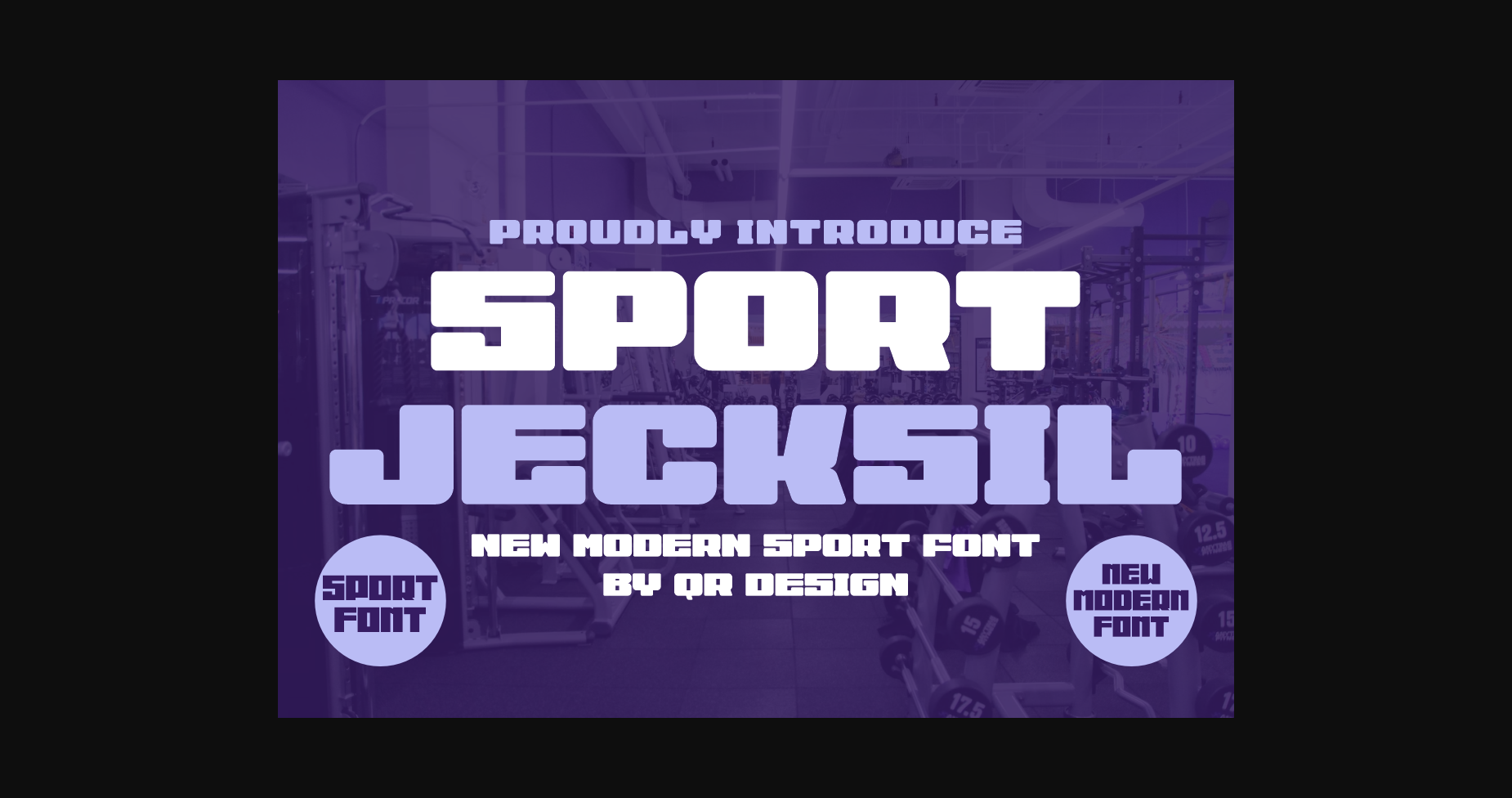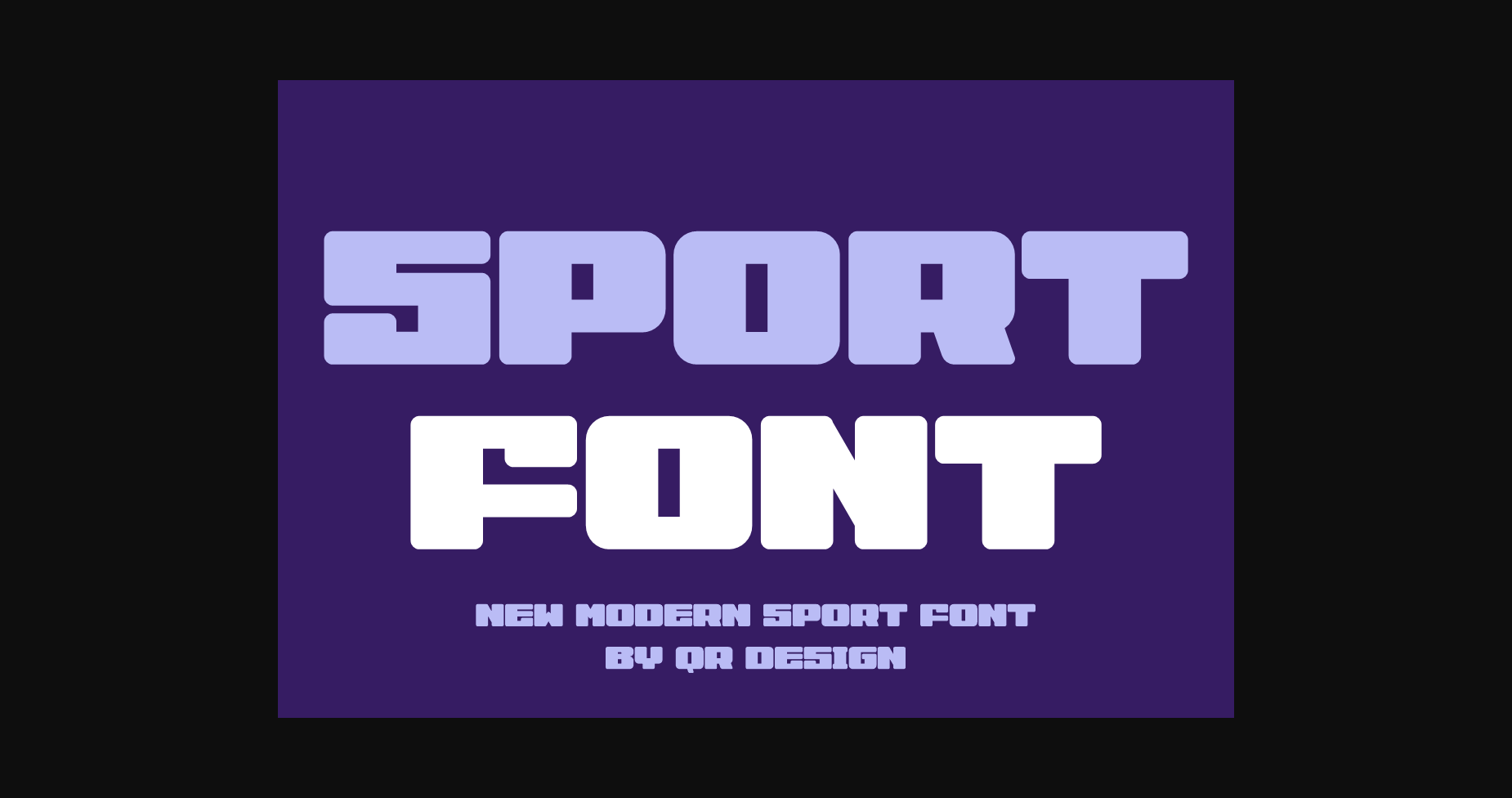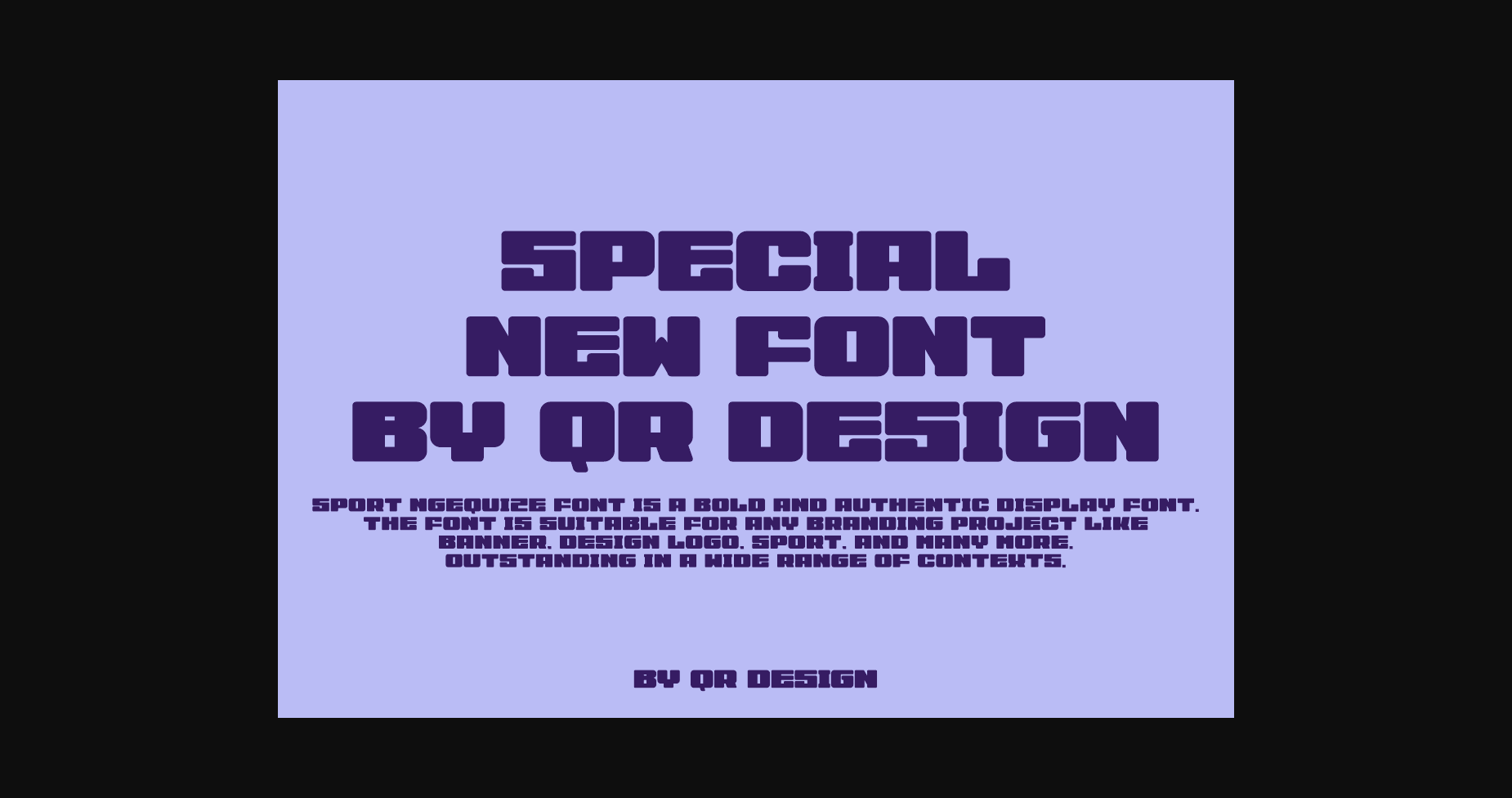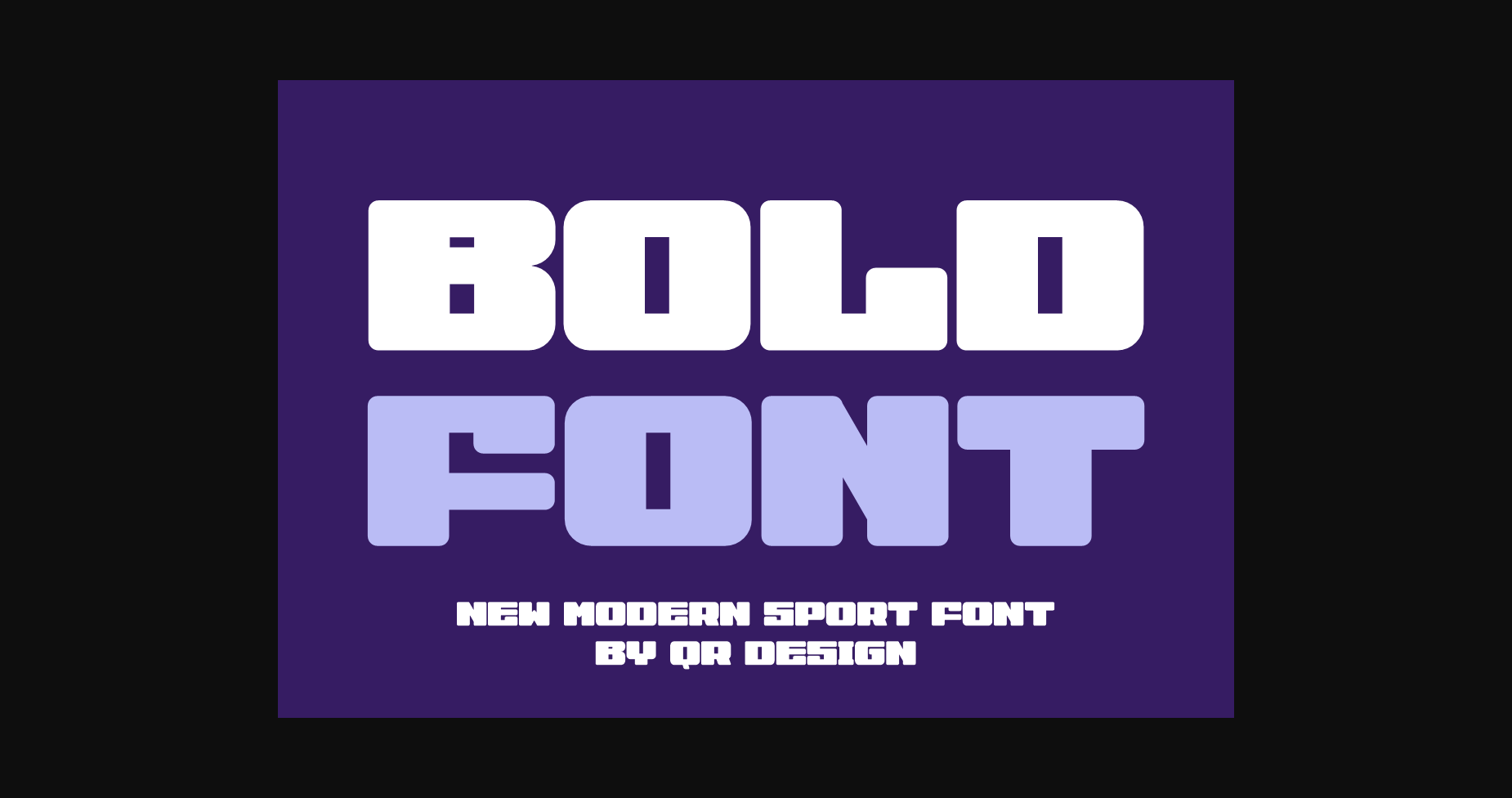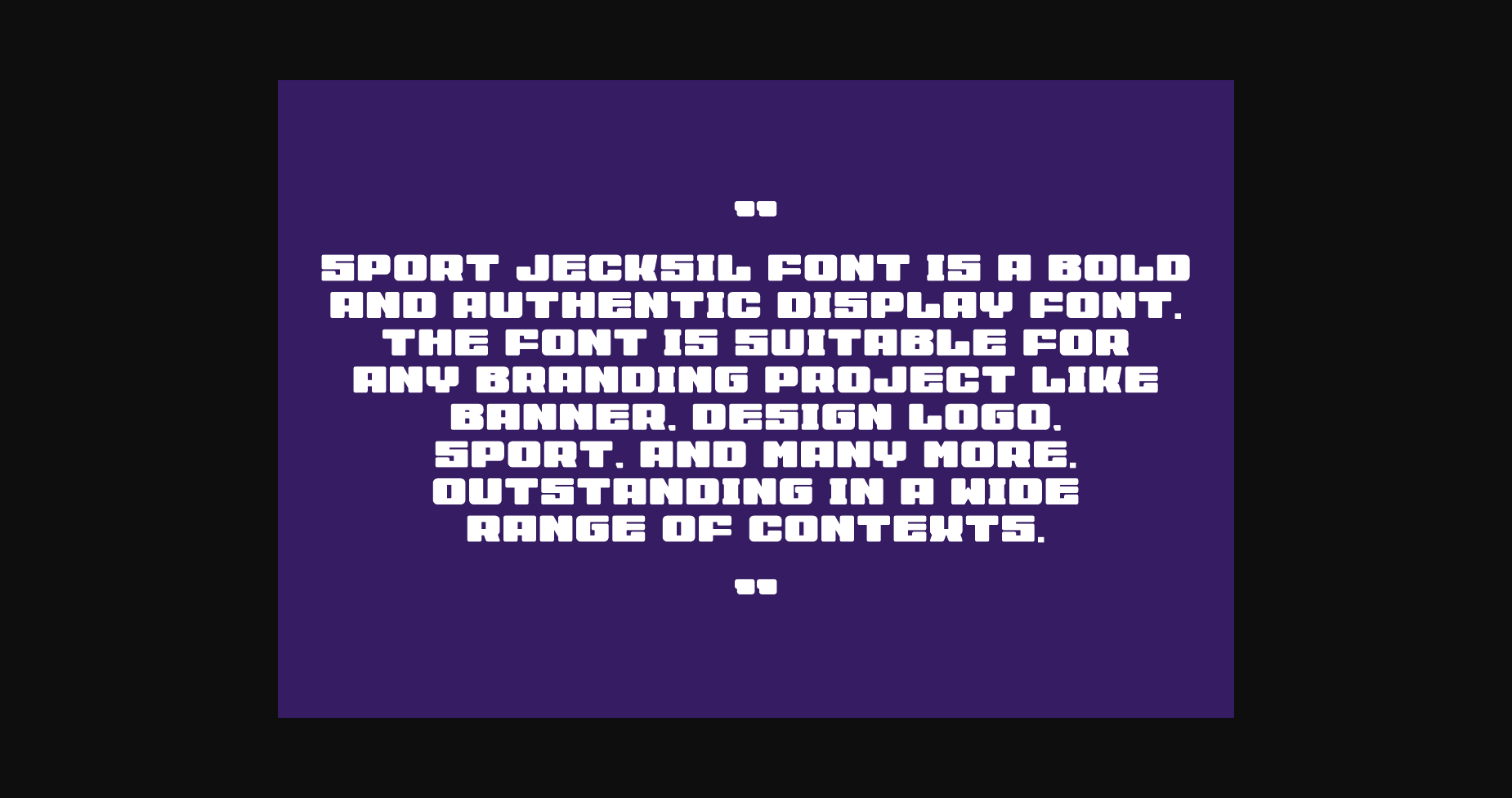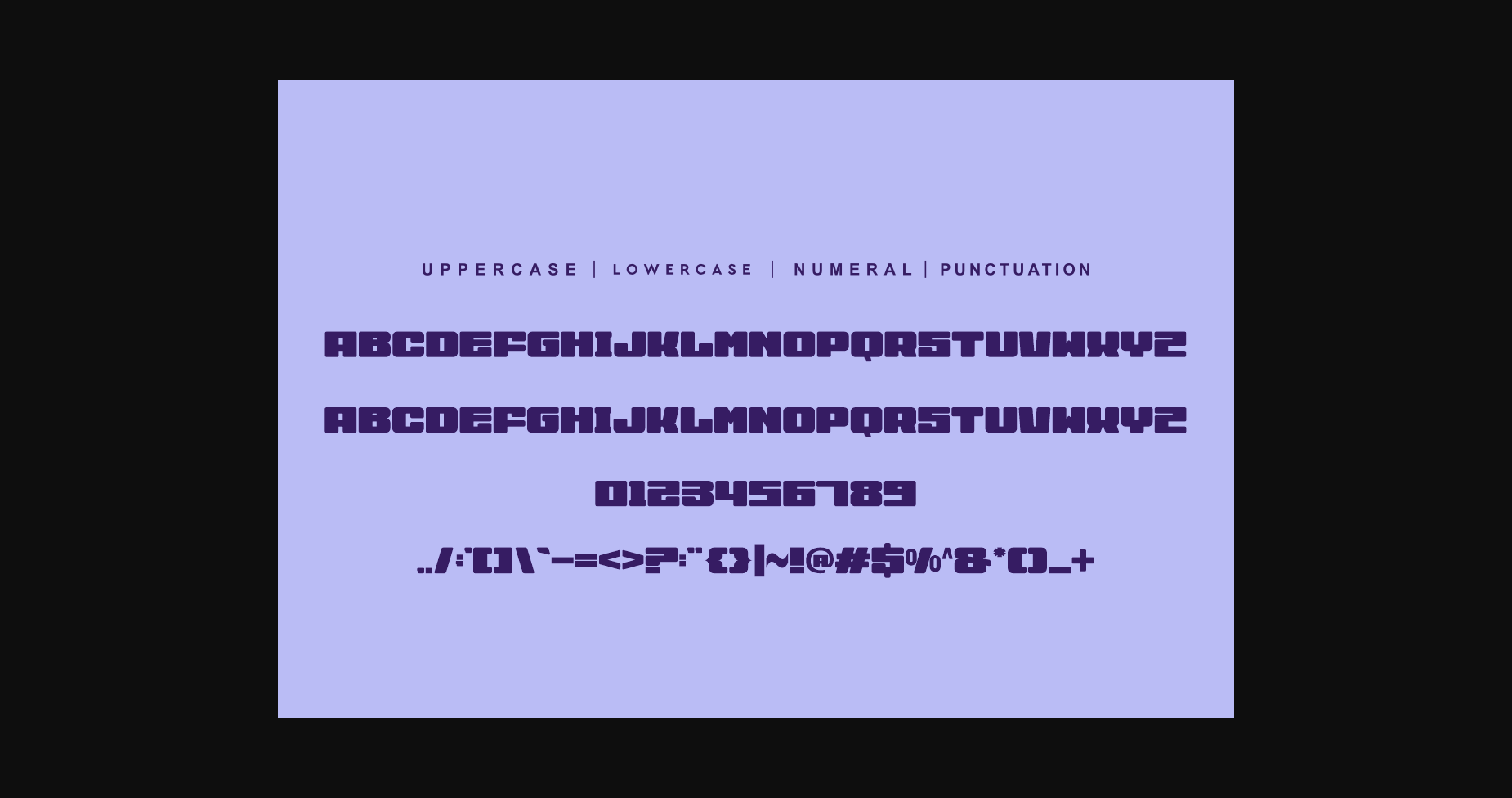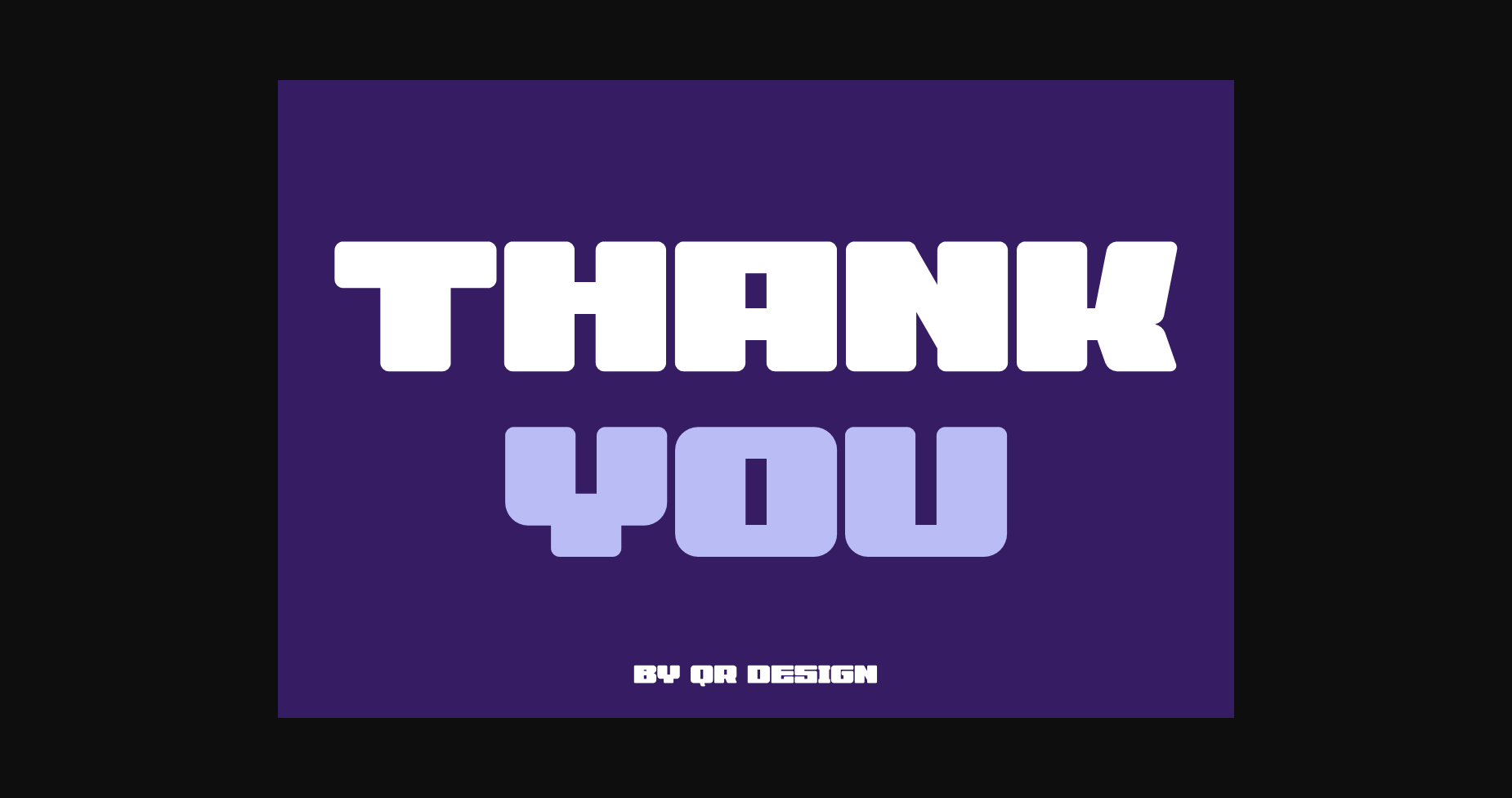
Sport Jecksil Font
About Sport Jecksil Font
Sport Jecksil Font is a bold and authentic display font.
The font is suitable for any branding project like logo, t-shirt printing, sport, and many more.